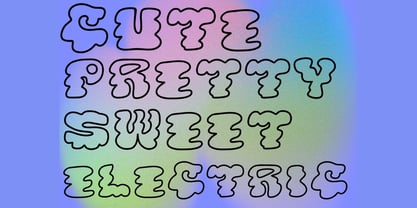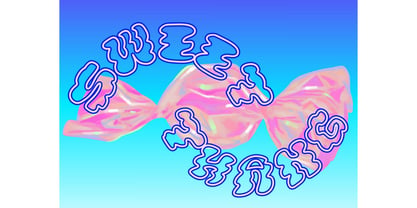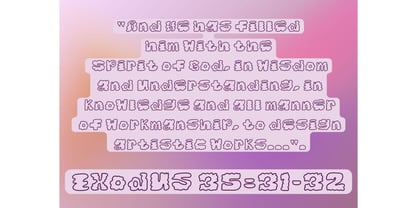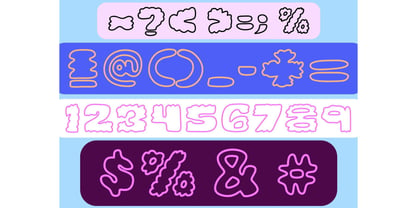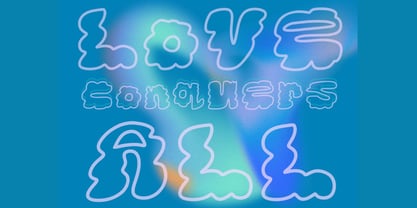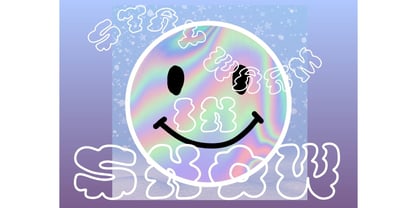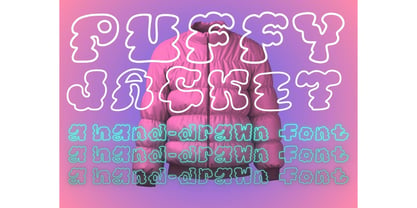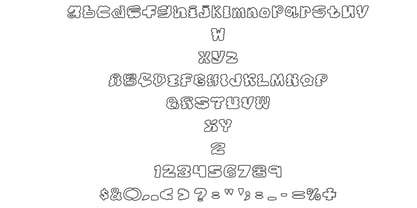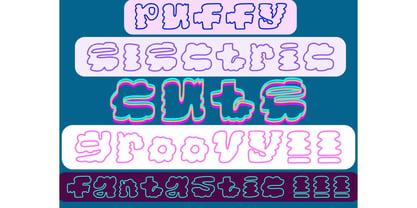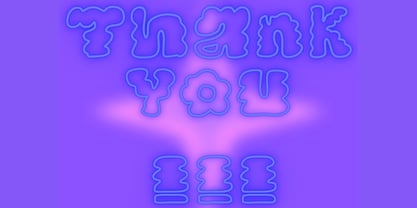
PuffyJacket
Die Schriftfamilie PuffyJacket wurde von Eryn Rose Tomlinson entworfen und von Eryn Rose Design veröffentlicht. PuffyJacket enthält 1 Stile. Mehr über diese Familie
Puffy Jacket is a lively hand-drawn eclectic font inspired by the cozy charm of your favorite winter puffy jacket. This open-faced typeface reveals whatever is underneath, making it an excellent choice for those who love layering in their design projects. Artistically crafted and truly unique, it is sure to catch the eye and add a playful touch to your work. If you appreciate handmade charm and character in your designs, this font is perfect for you. Ideal for children's books, album cover design, event branding, label creation, or logo design, your projects will undoubtedly stand out with this distinctive typeface. Enjoy the creative process and embrace the beauty of hand-made fonts.
Designer: Eryn Rose Tomlinson
Foundry: Eryn Rose Design
Eryn Rose, a graduate of the Rhode Island School of Design, is a multifaceted artist specializing in illustration, graphic design, and type design. She skillfully blends modern and classic typography, leveraging her fine art and design expertise. Each piece of her typography is unique, ensuring that it cannot be replicated or found elsewhere. Eryn's typography is artfully crafted, infusing warmth into her designs that only a human touch can provide. Her work resonates across various industries, including editorial, tech, and retail, setting her apart in the competitive market with her signature style and design philosophy.